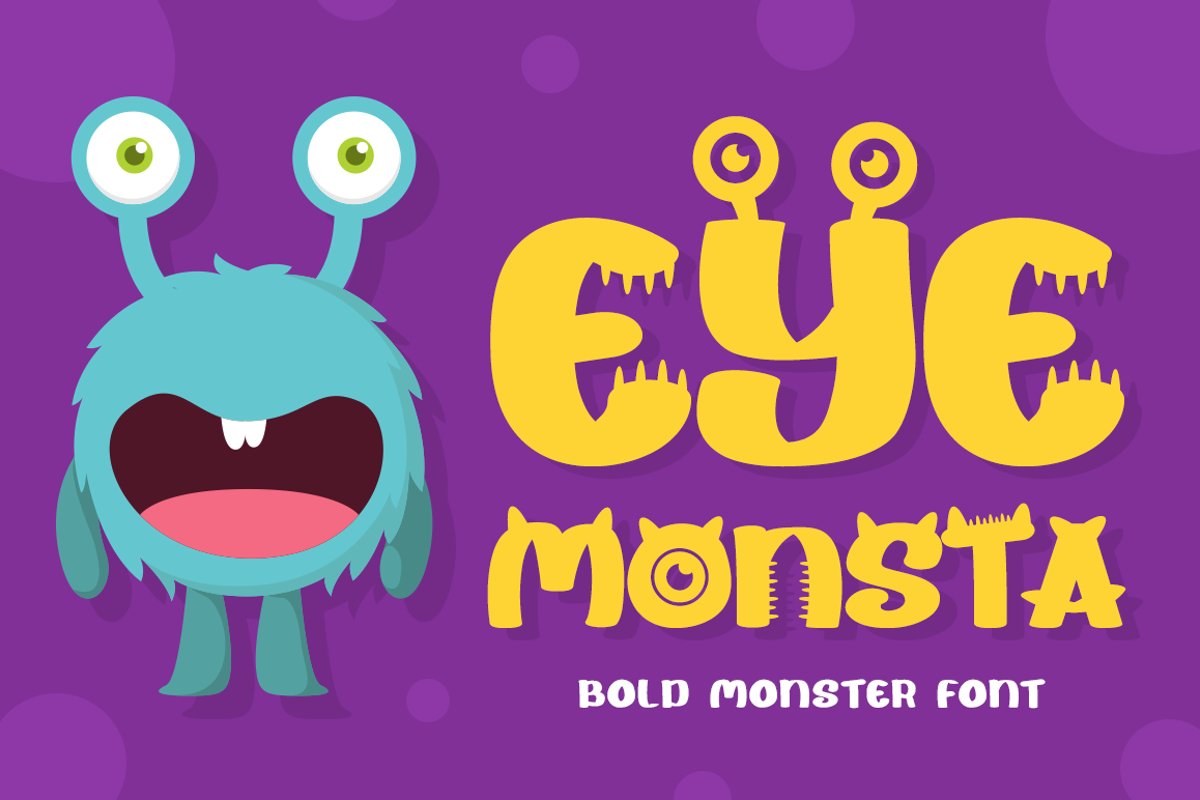
Happy to share our new font "Eye Monsta" is a bold and fun display font, carefully handcrafted to become a true favorite. Its casual charm makes it appear wonderfully down-to-earth, readable and, ultimately, incredibly versatile. This font will look outstanding in any context, whether it's being used on busy backgrounds or as a standalone headline!
Have a multilingual accent, alternate caps on uppercase and mix with a cute monster character.